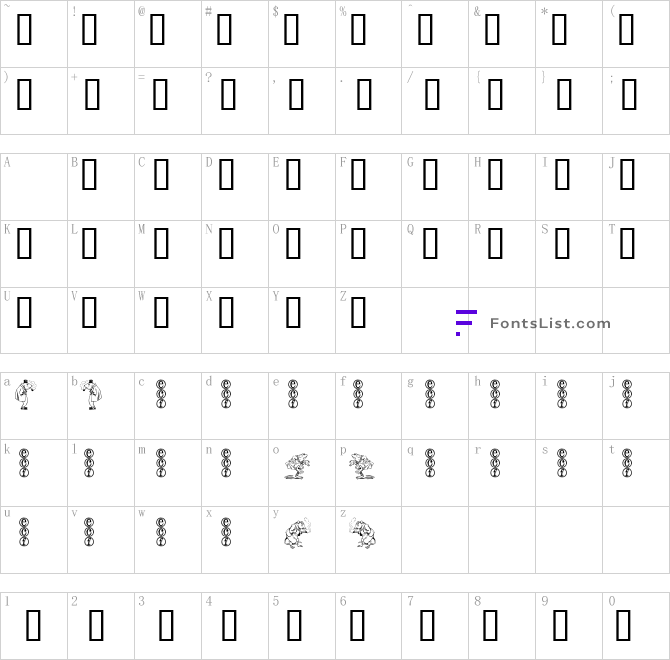
- Font Name:animal crackers (eval)
- Subfamily:animal crackers (eval), emerald city fontwerks clipfont #101e
- Full Name:animal crackers (eval)
- Version:animal crackers (eval), ecf #101e, v1.0 1/13/98
- Copyright:animal crackers (eval), digitized from a collection of public domain sketches in january 1998 by steven j. lundeen, emerald city fontwerks, seattle, wa, usa (manarts@seanet.com). ecf clipfont #101e.
animal-crackers-eval-.ttf is a very beautiful artistic font, animal-crackers-eval-.ttf is widely used in the design and printing of various books and pictures,animal-crackers-eval-.ttf has a strong visual impact,animal-crackers-eval-.ttf is a commonly used font in newspapers, magazines and books, and is used in posters, e-commerce Poster design, store design, logo design, font design and other fields.animal-crackers-eval-.